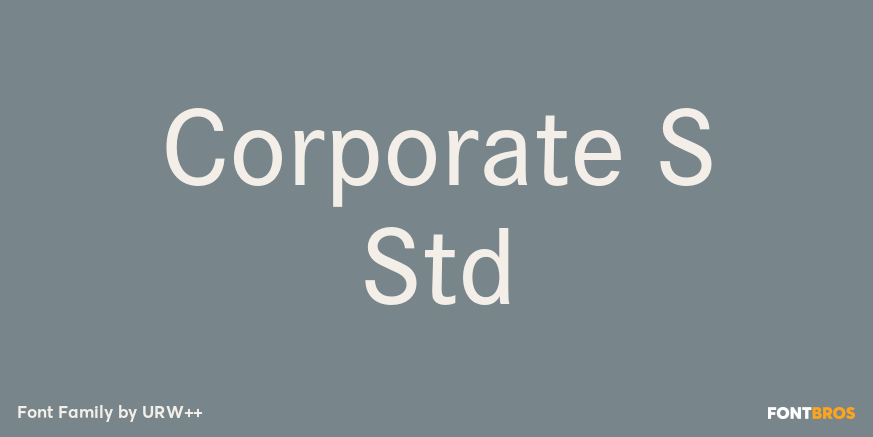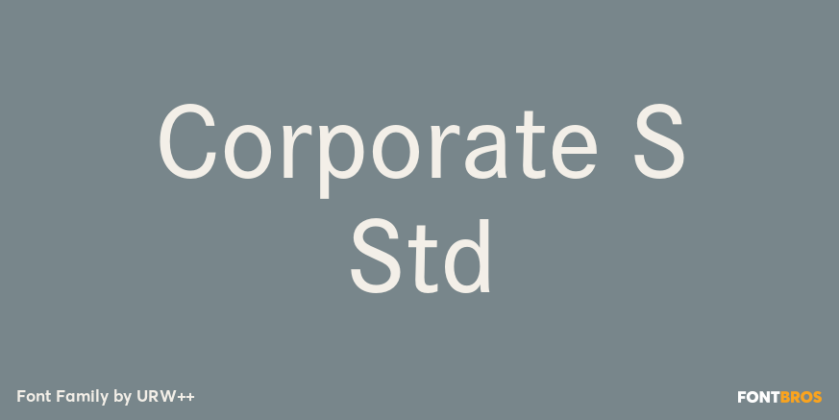
About Corporate S Std
The Corporate ASE typeface trilogy was designed by Prof. Kurt Weidemann, a well-known German designer and typographer, from 1985 until 1990. This superb trilogy consisting of the Corporate A (Antiqua), Corporate S (Sans Serif), and Corporate E (Egyptian)…